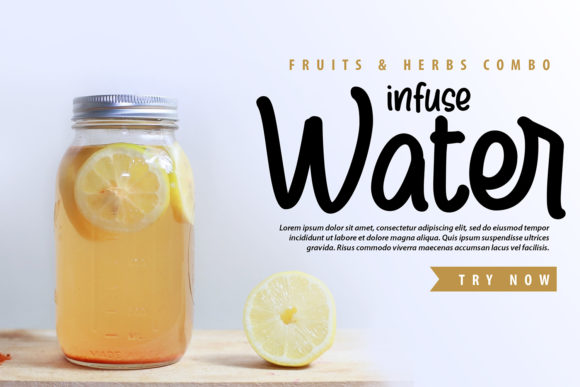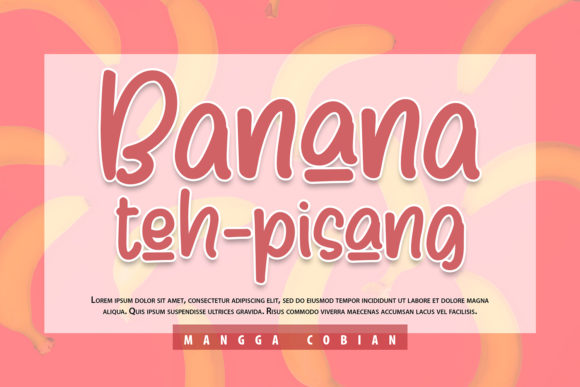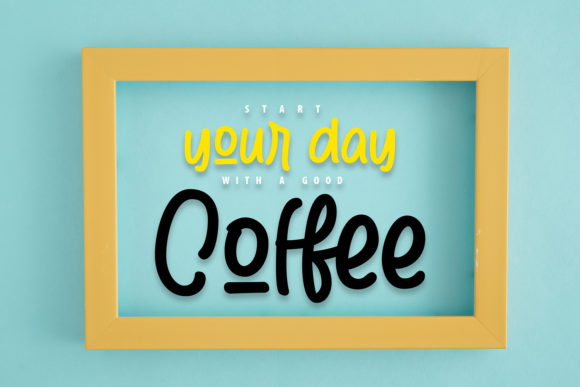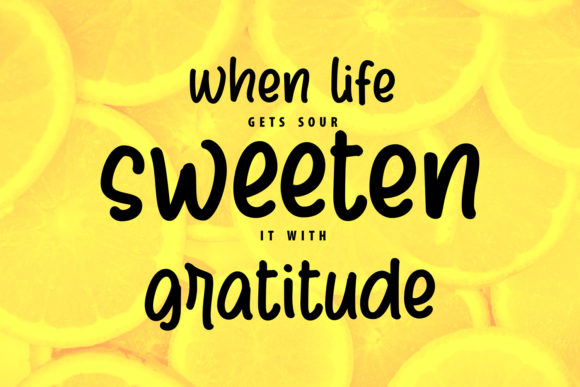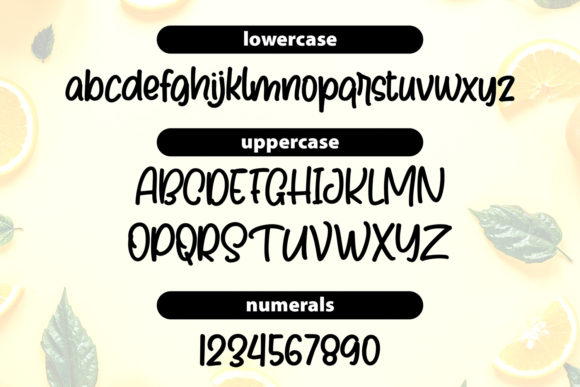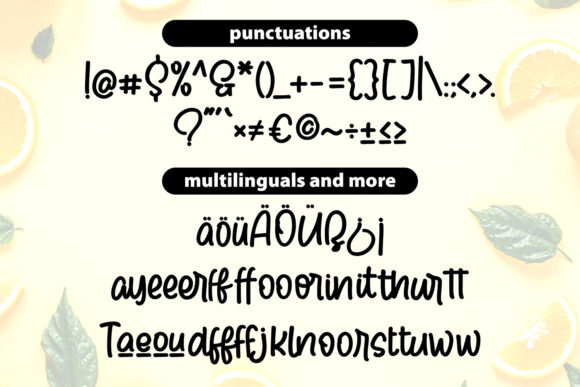
Introduction to Migawe Font Font
Fonts play a crucial role in design, and the Migawe Font font is a typeface that brings both character and versatility to any project. Whether you’re working on a branding project, a website, or a print design, the Migawe Font font offers a unique style that can elevate your work.
Migawe is a cute and quirky display font.
It will add an incredibly joyful touch to your designs Add this beautiful display font to each of your creative ideas and notice how it makes them stand out.
Key Features of Migawe Font Font
Why Choose Migawe Font Font?
The Migawe Font font is more than just a typeface – it’s a design tool that helps you communicate your message with style and clarity. Its unique character set and versatile design make it suitable for a wide range of applications, from elegant invitations to bold headlines.
With its carefully crafted letterforms and balanced proportions, the Migawe Font font ensures readability and visual appeal across all mediums.
What makes Migawe Font font special?
The Migawe Font font stands out with its unique design, exceptional readability, and versatility across various design applications.